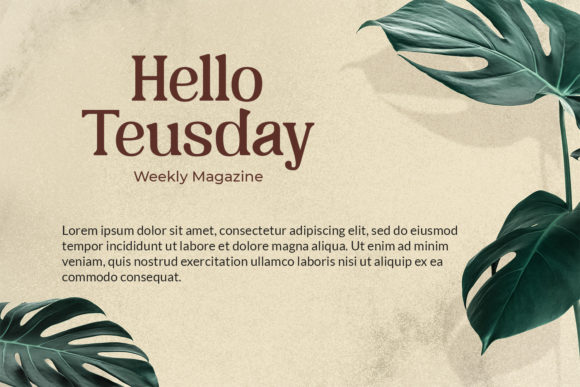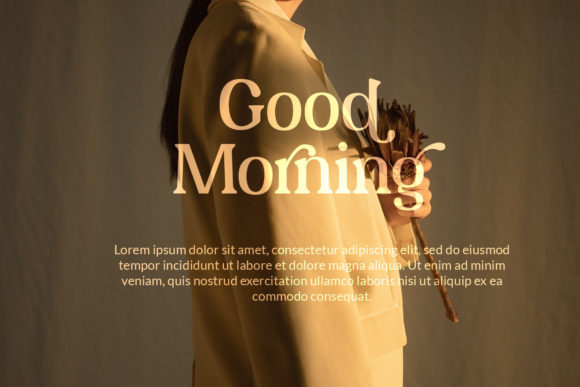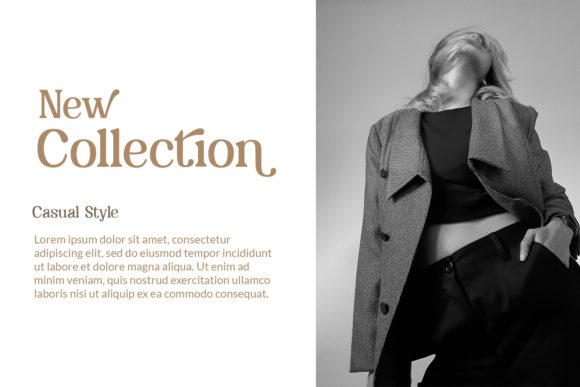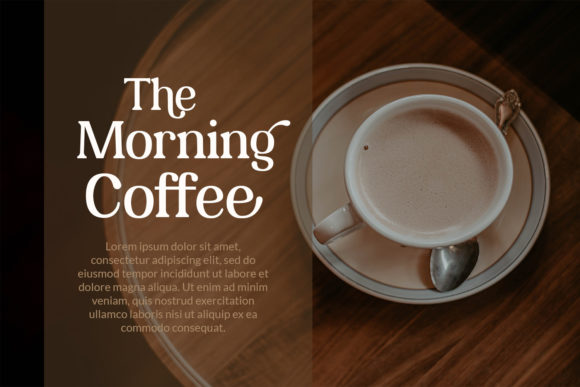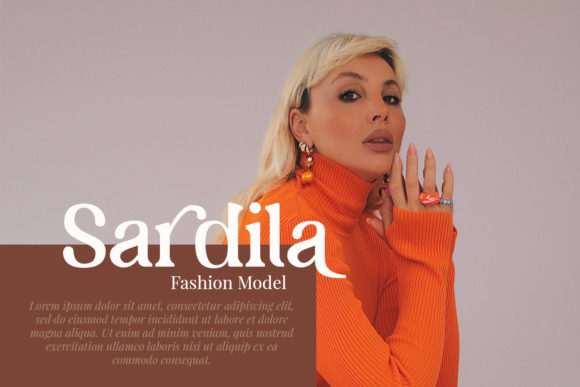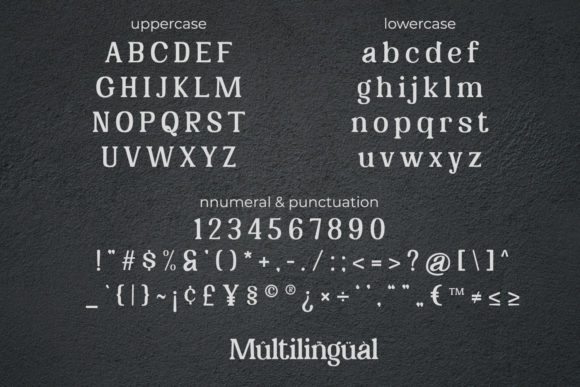
Introducing Gotile Font: Elevate Your Designs with Modern Elegance
In the world of typography, fonts play a crucial role in conveying messages, expressing emotions, and creating visual identities. For designers and crafters, finding the perfect font can be a daunting task. However, if you’re looking for a modern and versatile serif font that can elevate your designs, look no further than Gotile Font. In this article, we’ll explore the features, benefits, and uses of Gotile Font, and why it’s a must-have for any creative project.
What is Gotile Font?
Gotile Font is a modern serif font designed to bring a touch of elegance and sophistication to your designs. Its clean lines, balanced proportions, and subtle flair make it an excellent choice for a wide range of applications, from digital media to print materials. Whether you’re working on a branding project, creating social media graphics, or designing a website, Gotile Font is the perfect companion to help you achieve your creative goals.
One of the standout features of Gotile Font is its PUA (Private Use Area) encoding. This means that you can access all the glyphs and swashes with ease, giving you unparalleled flexibility and creative control. With PUA encoding, you can effortlessly insert alternative characters, ligatures, and ornaments into your text, adding a unique touch to your designs. Whether you’re a seasoned designer or a beginner, Gotile Font’s PUA encoding makes it easy to get the most out of your typography.
Gotile Font is designed to be versatile, making it suitable for a wide range of design applications. Here are just a few examples of how you can use Gotile Font:
- Branding and Logo Design: Use Gotile Font to create stunning logos, business cards, and brand identities that exude professionalism and style.
- Digital Media: Add Gotile Font to your website, social media graphics, and email marketing campaigns to elevate your online presence.
- Print Materials: Use Gotile Font for brochures, flyers, posters, and other print materials to create visually appealing and effective marketing materials.
- Crafting and DIY Projects: Gotile Font is perfect for crafters and DIY enthusiasts who want to add a personal touch to their projects, such as handmade cards, scrapbooking, and journaling.
Why Choose Gotile Font?
With so many fonts available, why choose Gotile Font? Here are just a few reasons why Gotile Font stands out from the crowd:
- Modern and Elegant: Gotile Font boasts a modern and elegant design that’s perfect for creating sophisticated designs.
- Highly Versatile: Gotile Font can be used for a wide range of applications, from digital media to print materials.
- PUA Encoding: Gotile Font’s PUA encoding makes it easy to access glyphs and swashes, giving you creative control and flexibility.
In conclusion, Gotile Font is a modern and versatile serif font that’s perfect for designers and crafters looking to elevate their designs. With its PUA encoding, elegant design, and high versatility, Gotile Font is a must-have for any creative project. Whether you’re working on a branding project, creating social media graphics, or designing a website, Gotile Font is the perfect companion to help you achieve your creative goals. So why wait? Add Gotile Font to your design arsenal today and experience the power of beautiful typography!